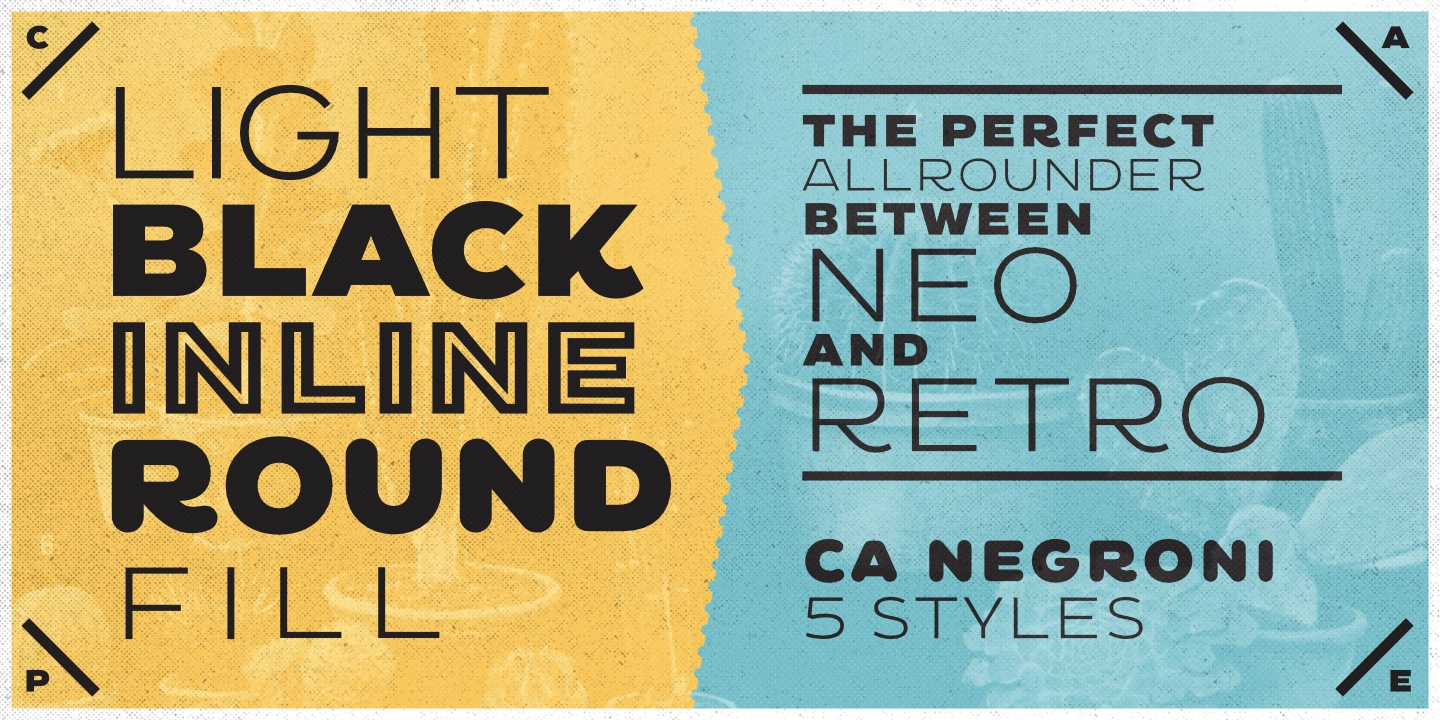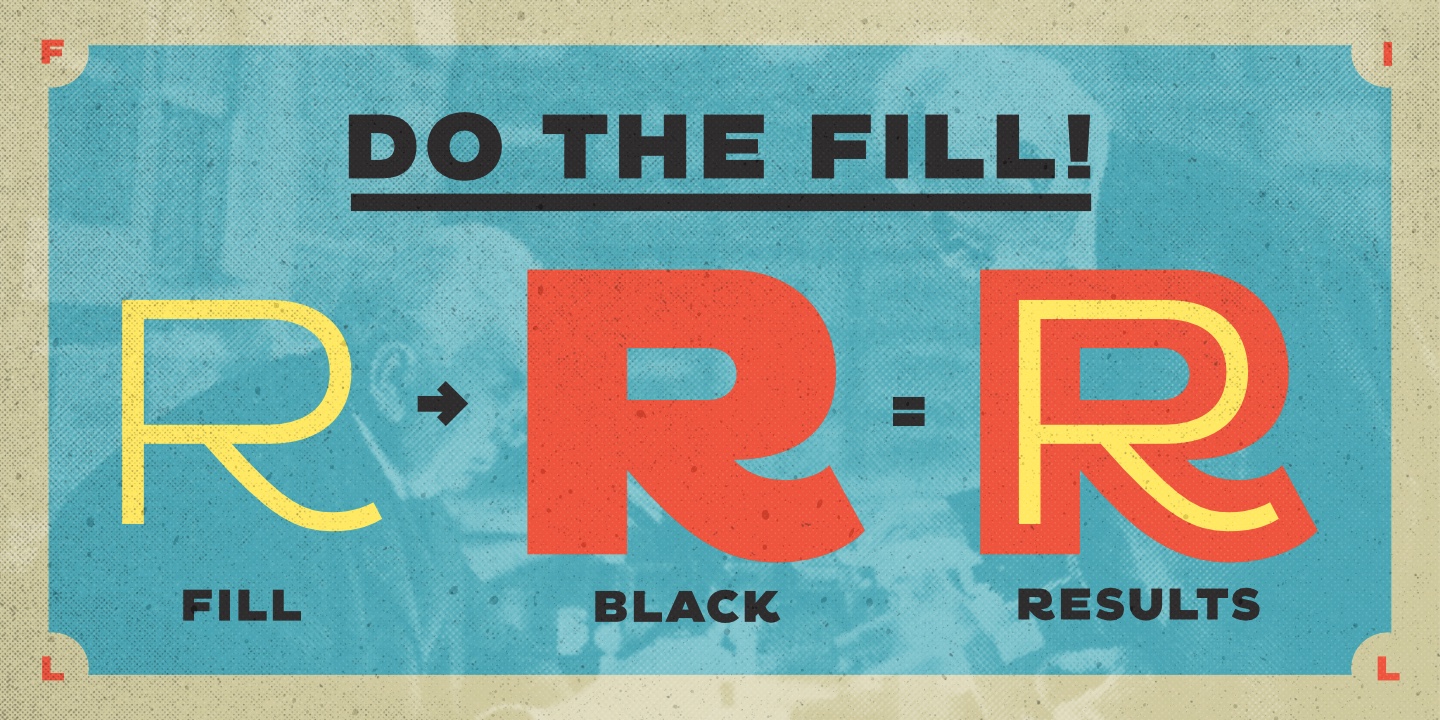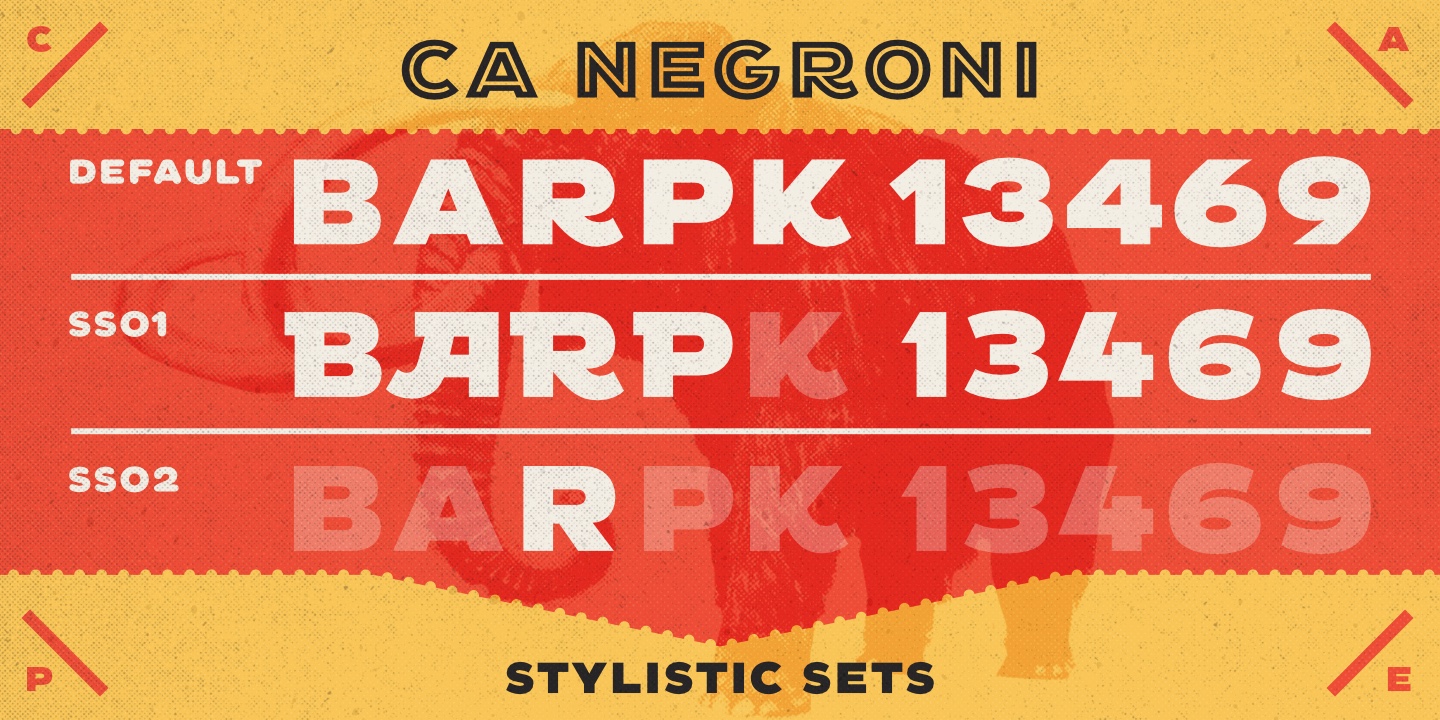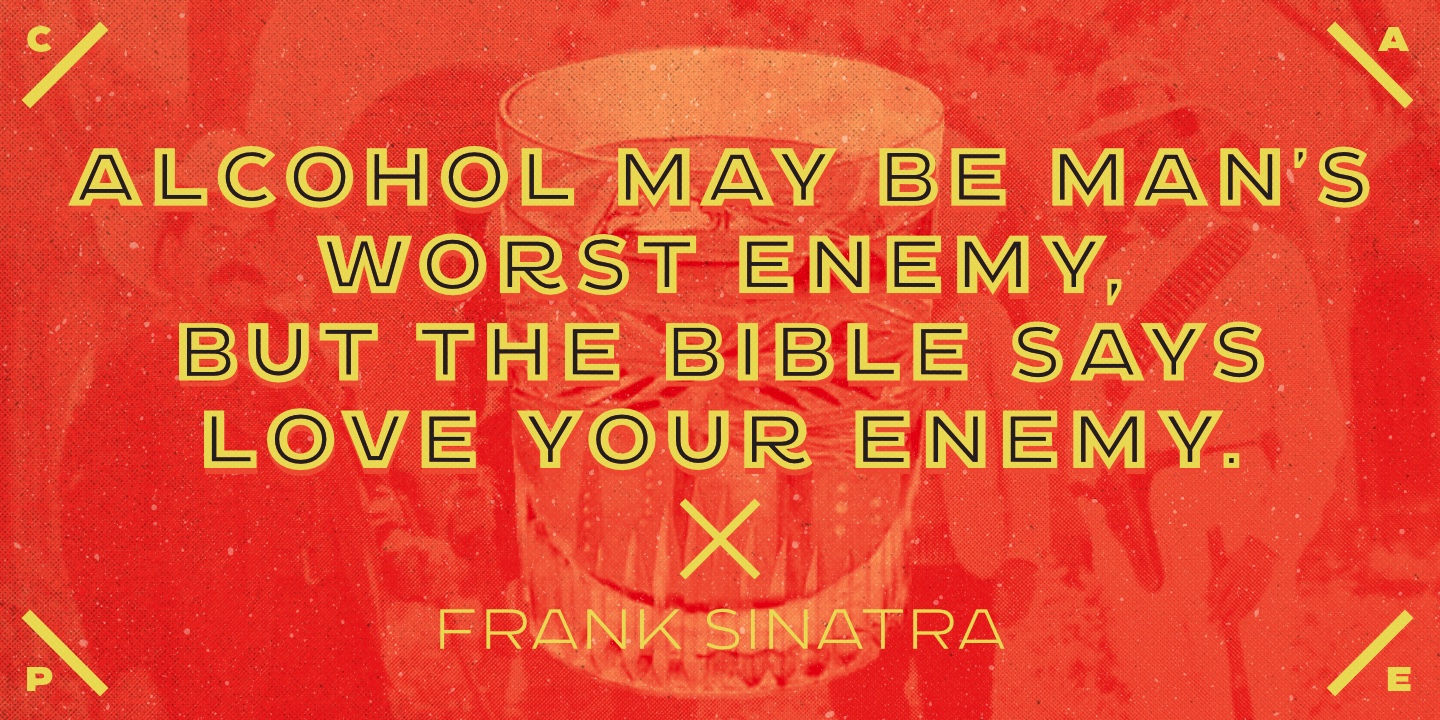
CA Negroni is a perfect allrounder between Neo and Retro, being rooted in the early 20th century, when typography in advertising was often drawn by hand. The results were quite unusual styles and letterforms. Wilhelm Deffke (1887–1950) was a pioneer of graphic design, and logos were his favorite field of activity.
CA Negroni is a tribute to his way of drawing heavy letterings. Inspired by charming details and the unique atmosphere, CA Negroni elevates this style to a contemporary level. While preserving the unconventional charm, it excludes disturbing details, that might harm the general look. Two stylistic sets offer a number of alternative letterforms that allow the designer to let the writing appear more playful or more serious.
CA Negroni offers three additional styles – Inline, Round and Light – to give you even more freedom in design. The extensive language support lets you master all Central European languages.